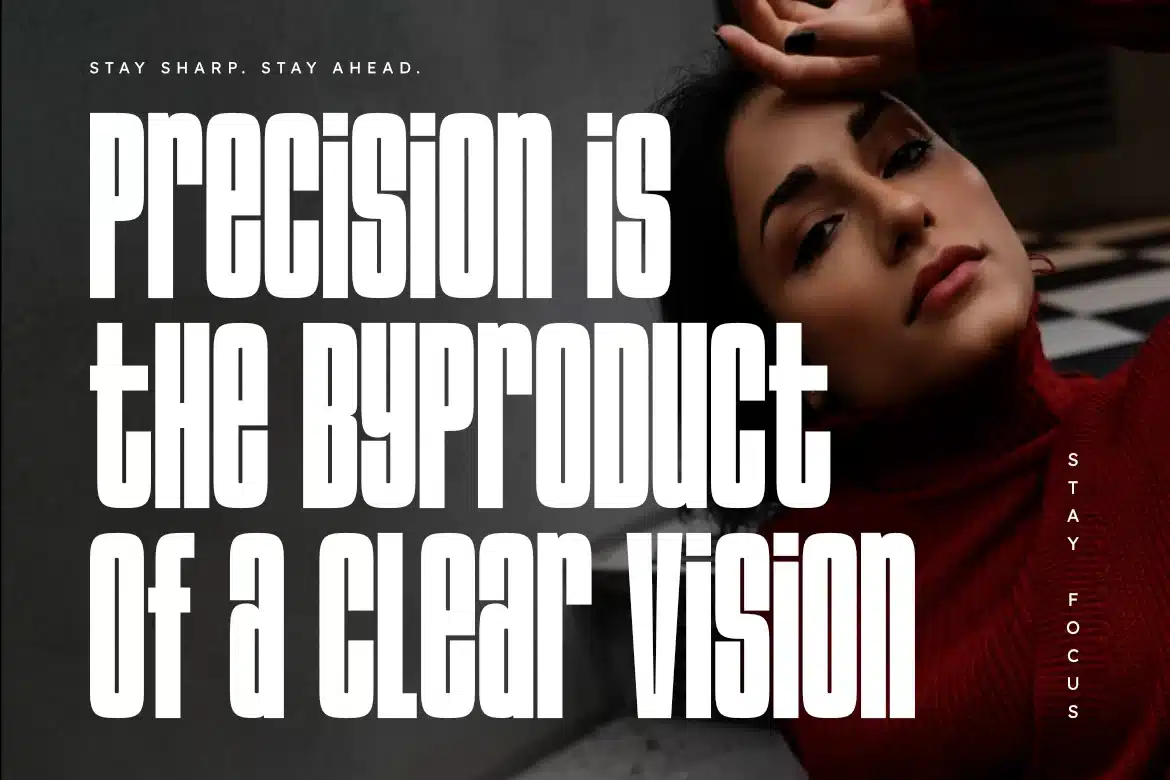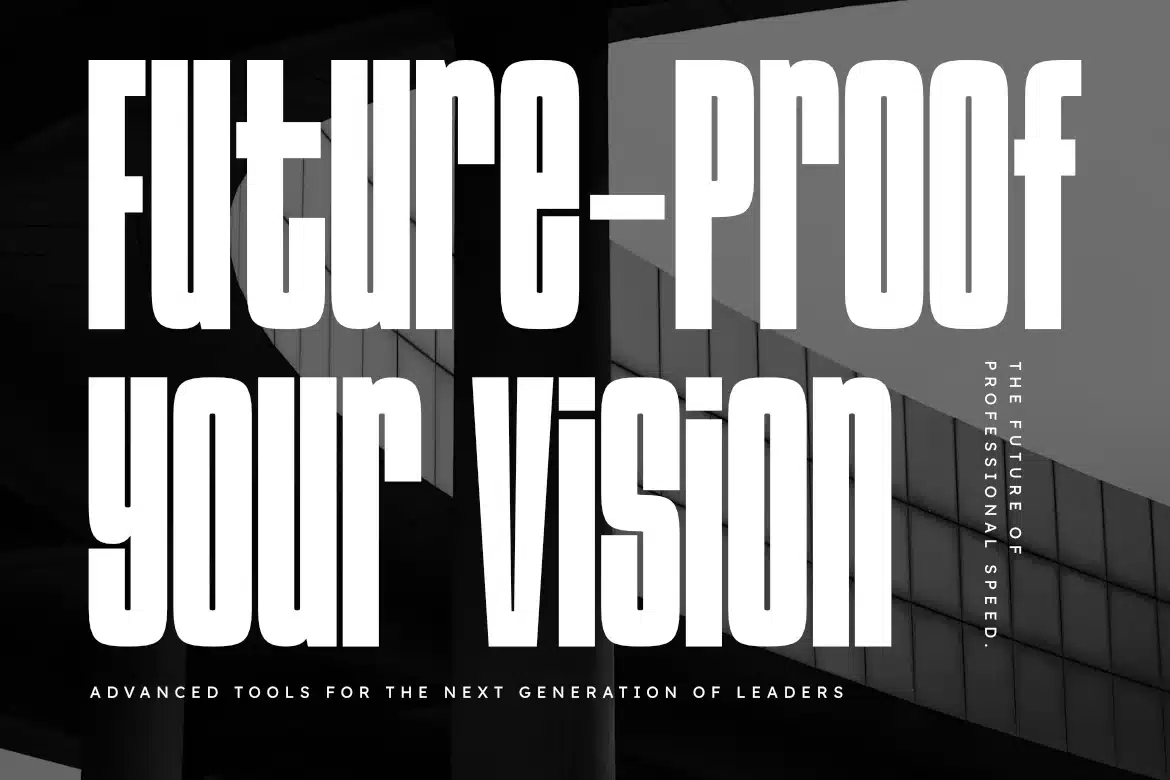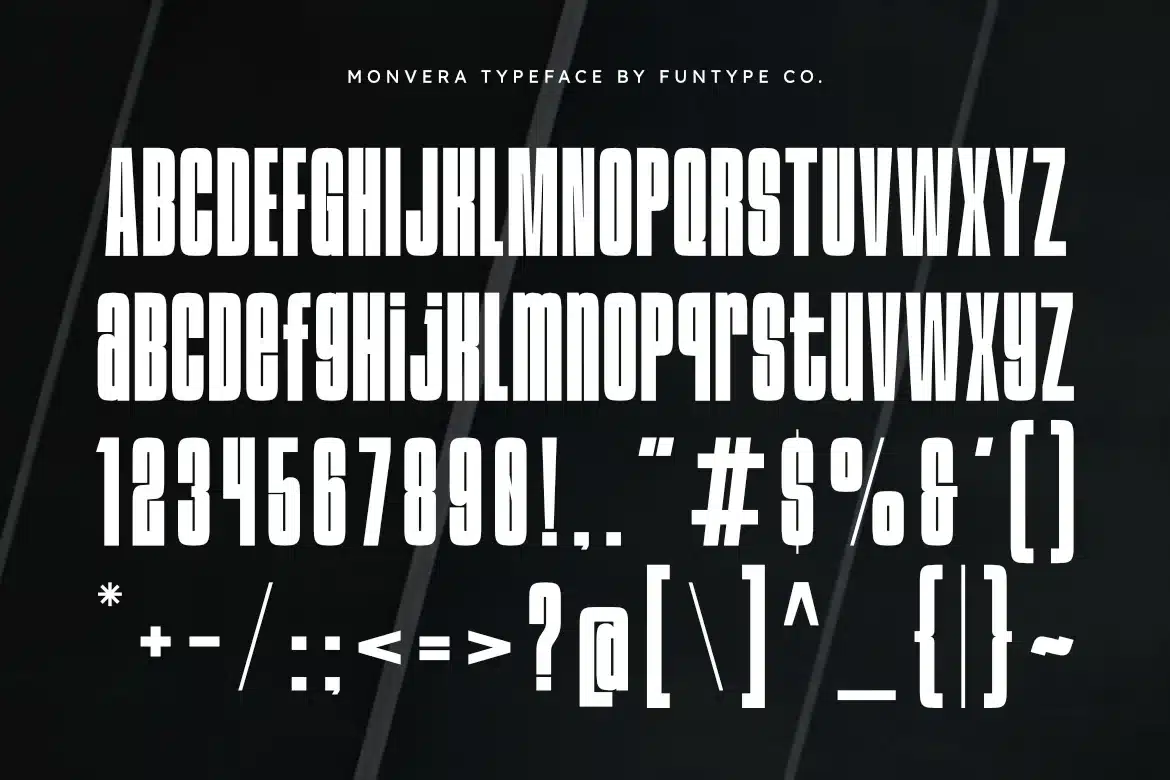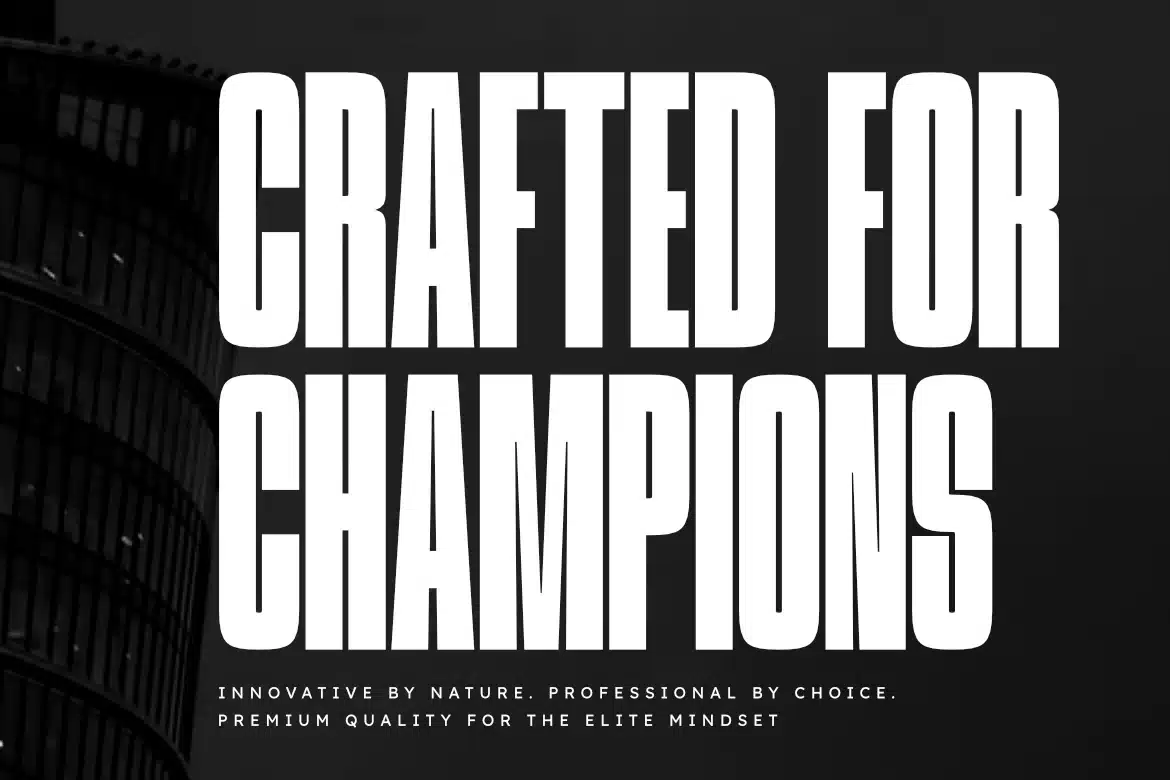
Monvera – Modern Bold Condensed Sans Serif Font
Monvera – Modern Bold Condensed Sans Serif
Monvera is a powerful and commanding condensed sans serif typeface designed for maximum visual impact. Featuring tall, clean-cut letterforms and a robust geometric structure, Monvera is the perfect choice for designers who need their headlines to speak with authority and modern sophistication.
Whether you are working on high-octane sports branding, sleek automotive advertisements, or minimalist editorial layouts, Monvera provides a professional edge that stands out in a crowded marketplace. Its narrow profile allows for tight tracking, making it exceptionally efficient for bold display use and impactful signage.
Key Features:
- Modern Condensed Aesthetic: Tall and bold for superior visibility.
- Geometric Precision: Clean lines and balanced proportions for a professional look.
Best Applications:
Bold headlines, sports jerseys, car magazine layouts, fitness branding, cinematic posters, and modern web headers.